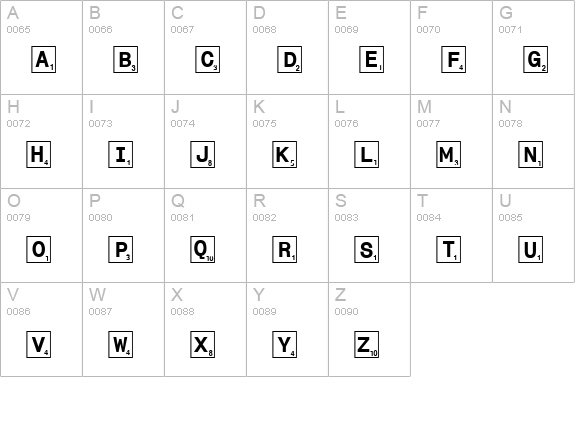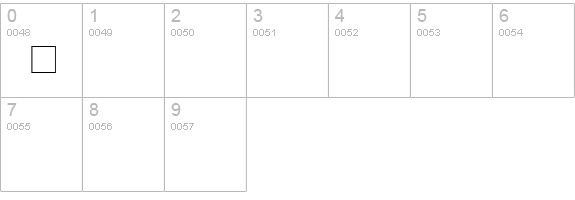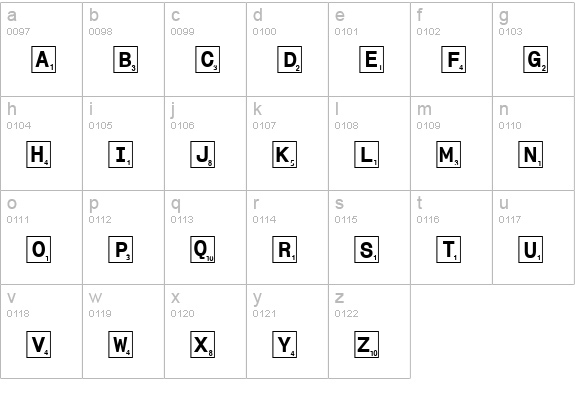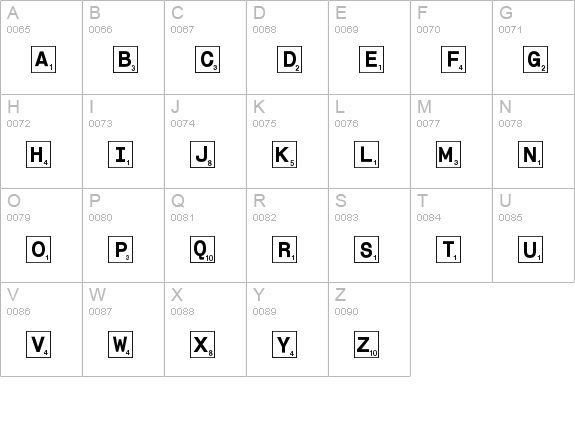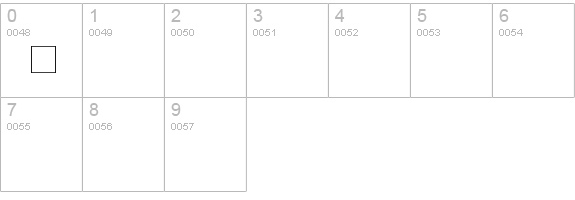
Introducing Tilez Font, a mesmerizing typeface that will revolutionize your design projects! With its unique and eye-catching geometric shapes, Tilez Font adds a touch of modern sophistication to any creative endeavor. Whether you're designing a logo, creating a poster, or crafting a website, this font will make your text stand out from the crowd. But what sets Tilez Font apart from other fonts on the market? It's the fact that it's absolutely free! That's right, you read it correctly. Tilez Font is freely available to download at FontsMarket.com. We believe that great design should be accessible to everyone, and that's why we're offering this remarkable font for free. The beauty of Tilez Font lies in its versatility. It can be used for both headlines and body text, giving you the freedom to experiment and create unique typographic compositions. Its clean lines and crisp edges make it perfect for minimalist designs, while its bold and striking appearance adds a touch of drama to any project. Designed with meticulous attention to detail, Tilez Font boasts a wide range of characters, including uppercase letters, lowercase letters, numbers, punctuation marks, and special symbols. This comprehensive set ensures that you have all the tools you need to bring your creative vision to life. With Tilez Font, there are no limitations to your imagination. Let its modern and sleek aesthetic inspire you to create stunning designs that leave a lasting impression. So why wait? Head over to FontsMarket.com and download Tilez Font for free today. Elevate your design game and make a bold statement with this exceptional typeface.